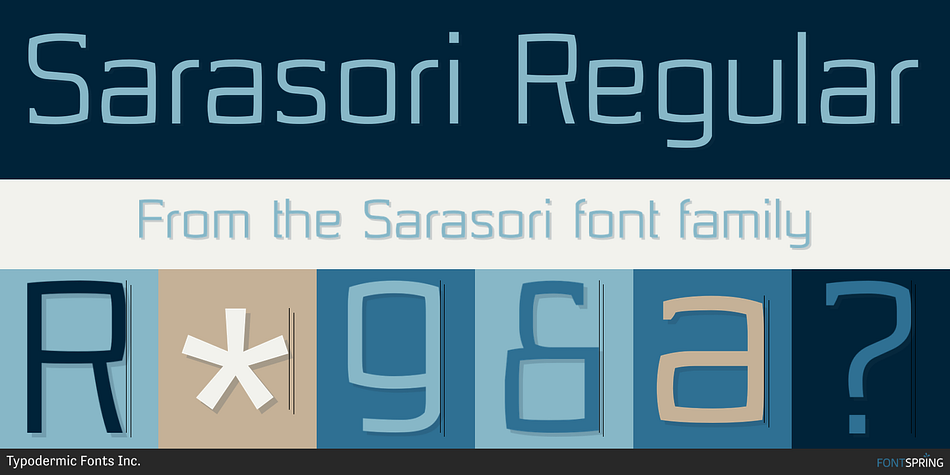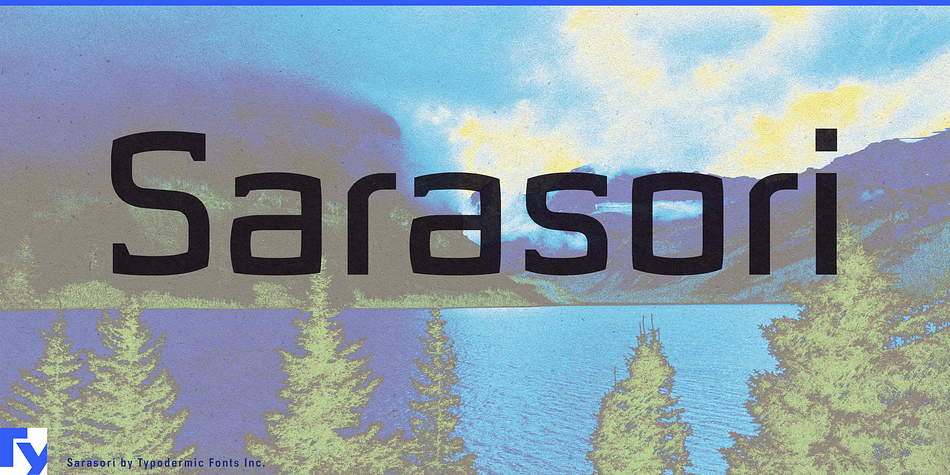
Sarasori Regular
Sarasori is a display sans font family. This typeface has six styles and was published by Typodermic Fonts Inc.
Introducing Sarasori, a typeface that effortlessly blends modern architecture and high-tech industrial design to bring you a unique and unconventional style. With its rectilinear display and technical serifs, this typeface is perfect for anyone looking to add a touch of precision and surrealism to their message.
The machinelike feel of Sarasori is a testament to its precise and clean design. The unconventional letterforms and obscure vector logic come together to create a unique and mesmerizing effect that is sure to captivate your audience. Whether you’re designing a logo, a poster, or any other form of visual communication, Sarasori will help you deliver your message with a voice that is both modern and industrial.
Sarasori is available in three different weights and italics, making it a versatile typeface that can be used for a variety of projects. Its sleek and polished appearance is sure to make a lasting impression, and its technical serifs add an extra layer of sophistication to your designs.